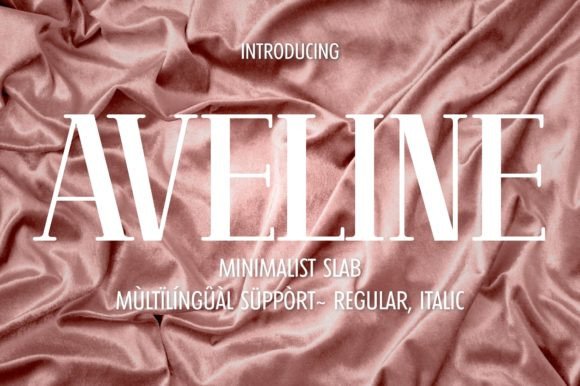
Aveline Font: Elevate Your Design with Elegance and Luxury
In the world of typography, fonts play a crucial role in conveying the tone and aesthetic of a design. For those seeking to add a touch of elegance and luxury to their creations, Aveline Font is an excellent choice. This feminine and elegant typeface is designed to provide the maximum luxurious aspect that a glyph can offer, making it perfect for various design applications.
The Design of Aveline Font
Aveline Font is crafted with meticulous attention to detail, focusing on creating delicate glyphs with high contrast within each skeleton. This thoughtful design approach results in a sophisticated and refined appearance, ideal for projects that demand a high level of elegance. The font’s unique characteristics make it stand out from other typefaces, offering a distinctive look that can elevate any design.
Versatile Applications of Aveline Font
Aveline Font’s versatility makes it suitable for a wide range of design projects. Some of the areas where this font can be wonderfully applied include:
- Packaging Design: Add a luxurious touch to your product packaging with Aveline Font. Its elegant appearance can enhance the overall look of your product, making it more appealing to customers.
- Fashion Design-Related Themes: Aveline Font is perfect for fashion brands looking to convey a sense of sophistication and style. It can be used in logos, advertisements, and marketing materials to create a cohesive and luxurious brand image.
- Fragrance Design: For perfume and fragrance brands, Aveline Font offers a refined and elegant solution for labeling and marketing materials. Its delicate appearance can evoke the essence of luxury and sophistication.
- Cosmetics Design: In the cosmetics industry, presentation is everything. Aveline Font can help elevate your brand’s visual identity, making it more attractive to customers seeking high-end beauty products.
- Social Posts: Even on social media, Aveline Font can make a significant impact. Use it to create eye-catching posts that stand out from the crowd, perfect for influencers, brands, and businesses looking to convey a luxurious image.
Why Choose Aveline Font?
When it comes to selecting a font for your design project, there are several reasons why Aveline Font stands out:
- Elegance: Aveline Font exudes elegance and sophistication, making it perfect for projects that require a refined look.
- Versatility: Its versatility allows it to be used across various design applications, from packaging to social media posts.
- Unique Appearance: The font’s delicate glyphs and high contrast within each skeleton give it a unique appearance that can set your design apart.
Tips for Using Aveline Font Effectively
To get the most out of Aveline Font, consider the following tips:
- Pair it with Neutral Colors: Aveline Font pairs well with neutral colors such as black, white, and pastels. These combinations can create a clean and sophisticated look.
- Experiment with Sizes: Don’t be afraid to experiment with different font sizes. Aveline Font can look stunning in both large and small sizes, making it versatile for various design elements.
- Use it for Headings and Titles: Aveline Font is particularly effective for headings and titles, where its elegant appearance can make a significant impact.
Aveline Font is a beautiful and elegant typeface that can add a touch of luxury to any design project. Its delicate glyphs, high contrast, and sophisticated appearance make it perfect for a wide range of applications, from packaging and fashion design to fragrance and cosmetics. By incorporating Aveline Font into your creations, you can confidently achieve awesome results that showcase elegance and refinement.